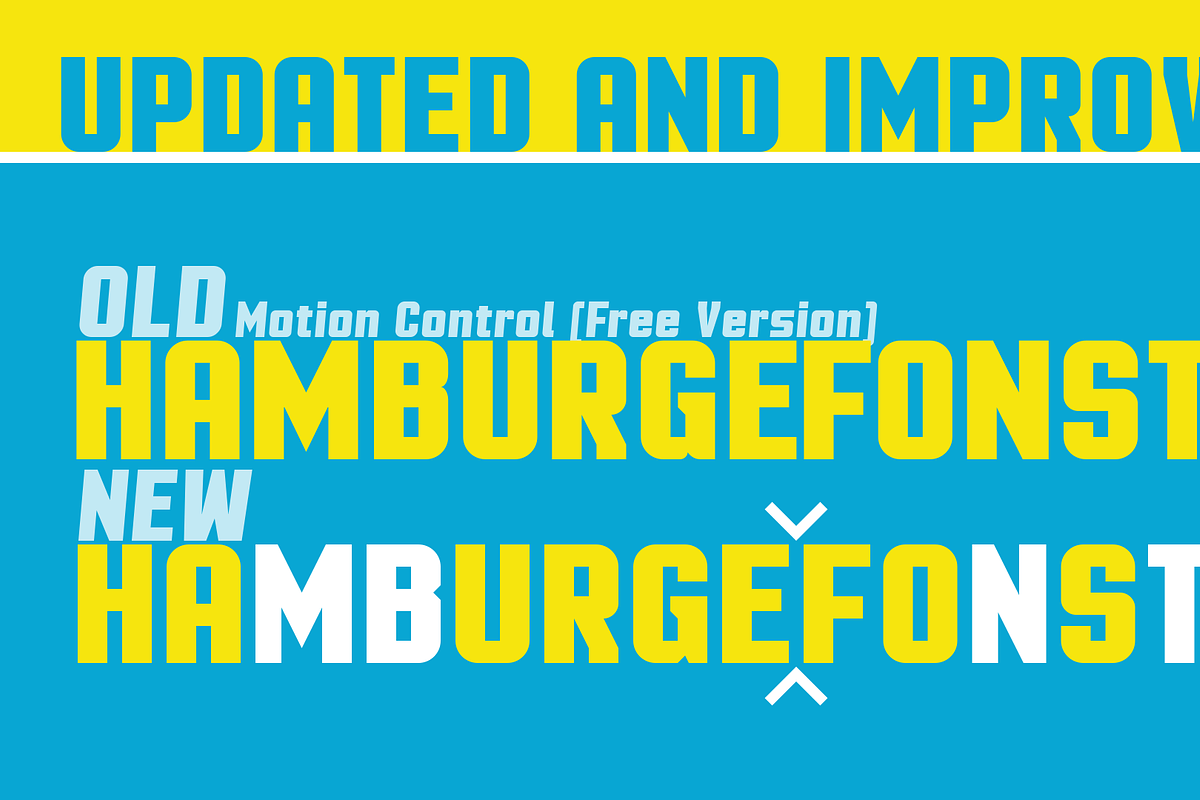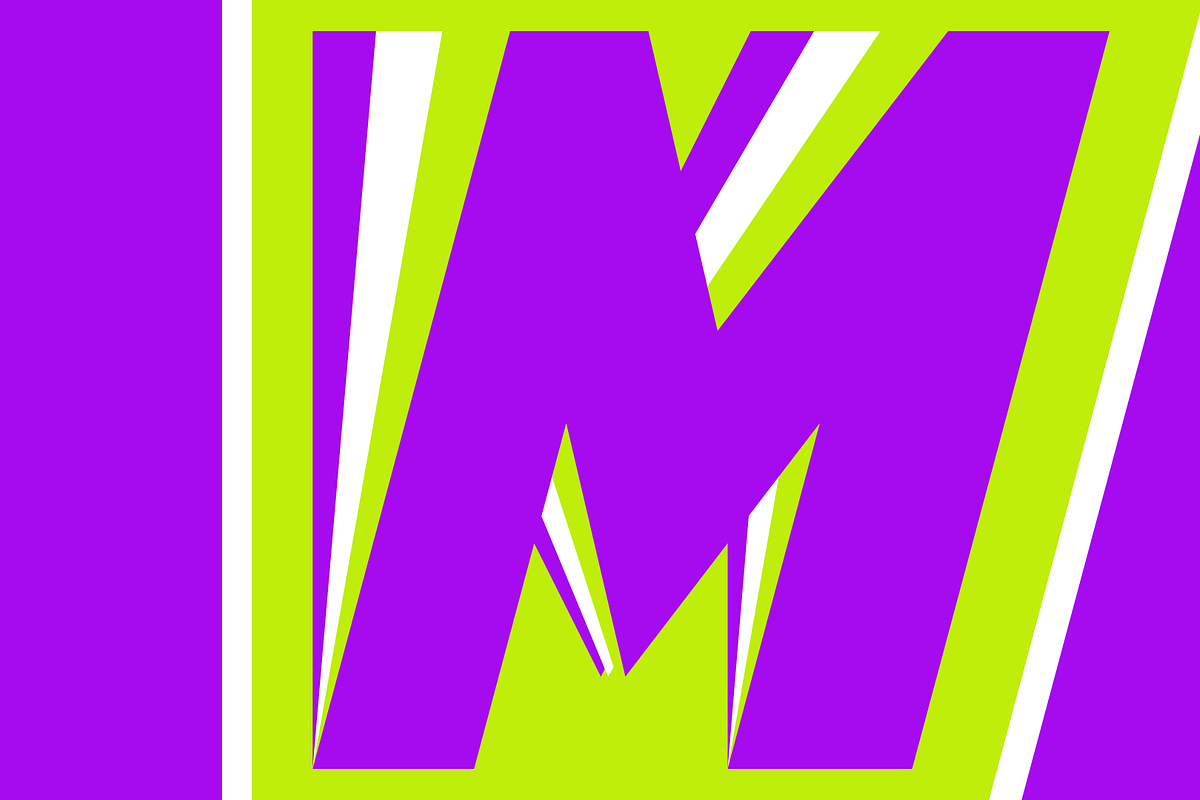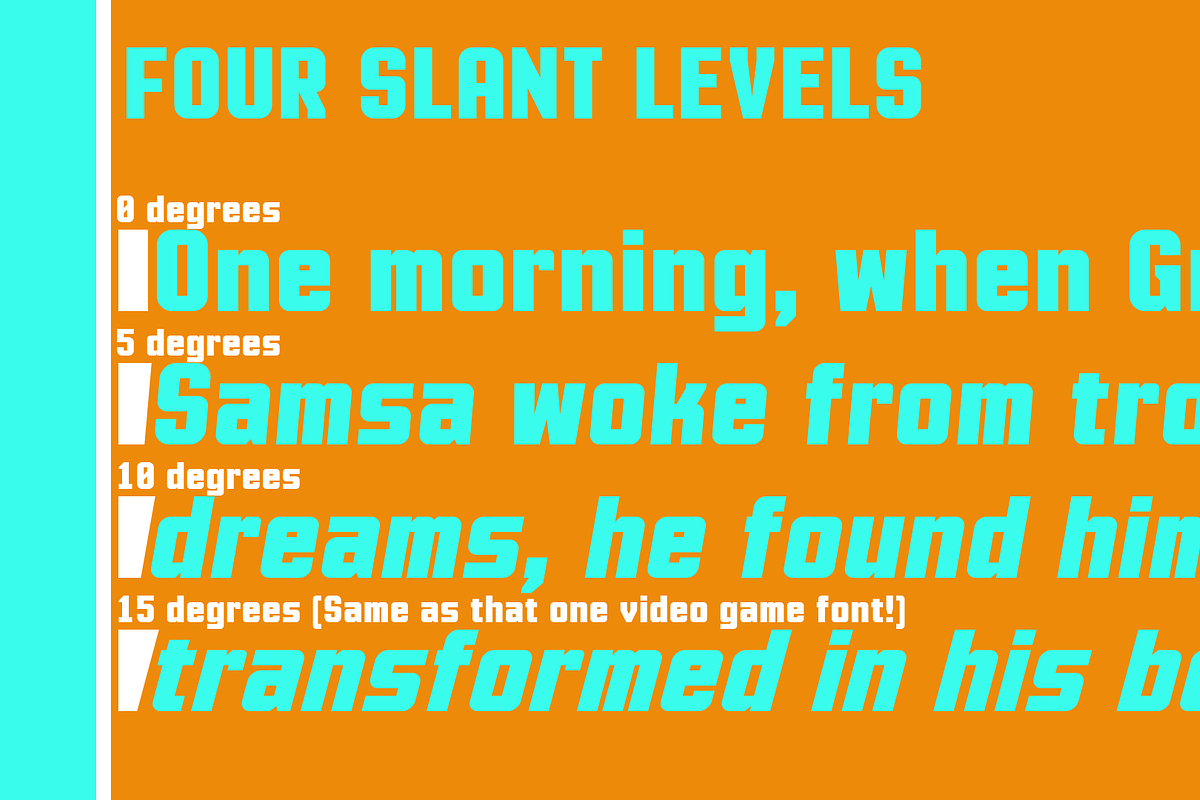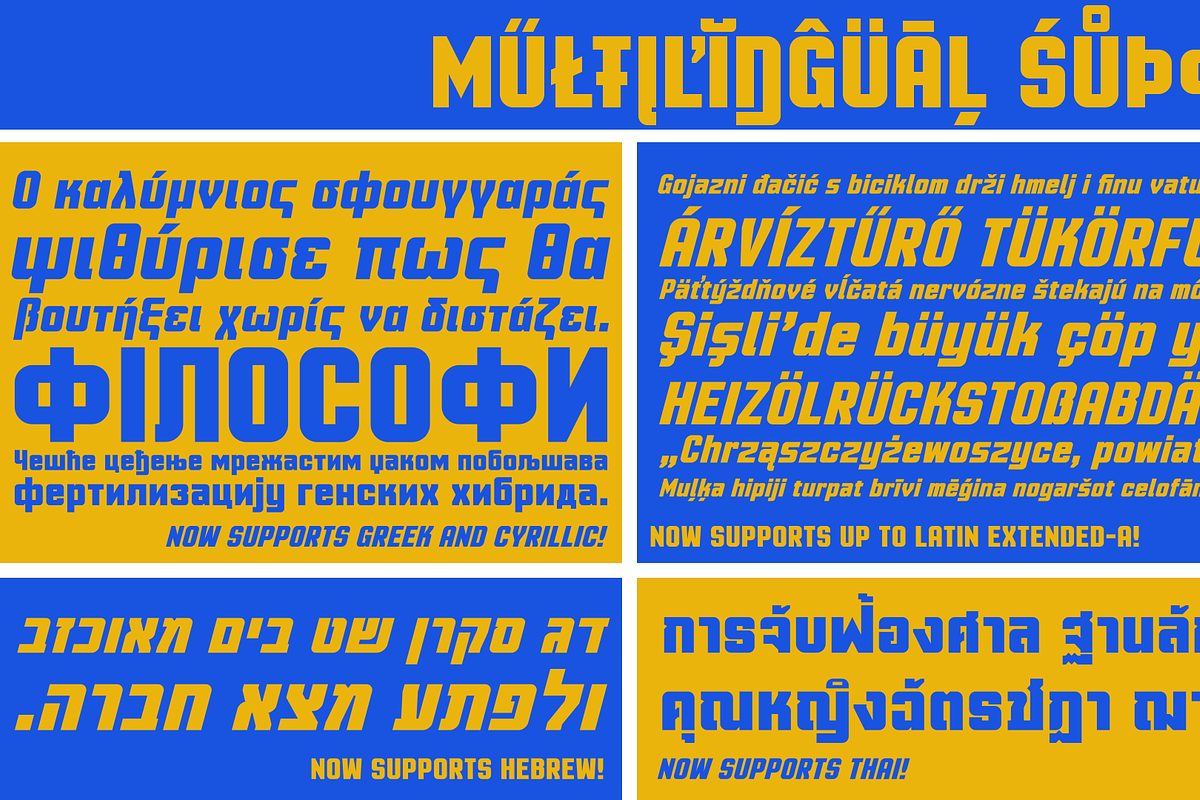
Motion Control Neue: a Sturdy Font
Motion Control Neue: a Sturdy Font by UkiyoMoji Fonts is a font selected for branding, posters, packaging, typography.
- OpenType alternate letterforms have been included.
- It also has vast multilingual availability, with added Greek, Cyrillic, Hebrew, and Thai support, as well as Latin Extended-A support.
- OpenType alternate letterforms have been included.
Why Motion Control Neue: a Sturdy Font is worth a look
Motion Control Neue: a Sturdy Font by UkiyoMoji Fonts fits naturally into Branding, posters, packaging, typography.